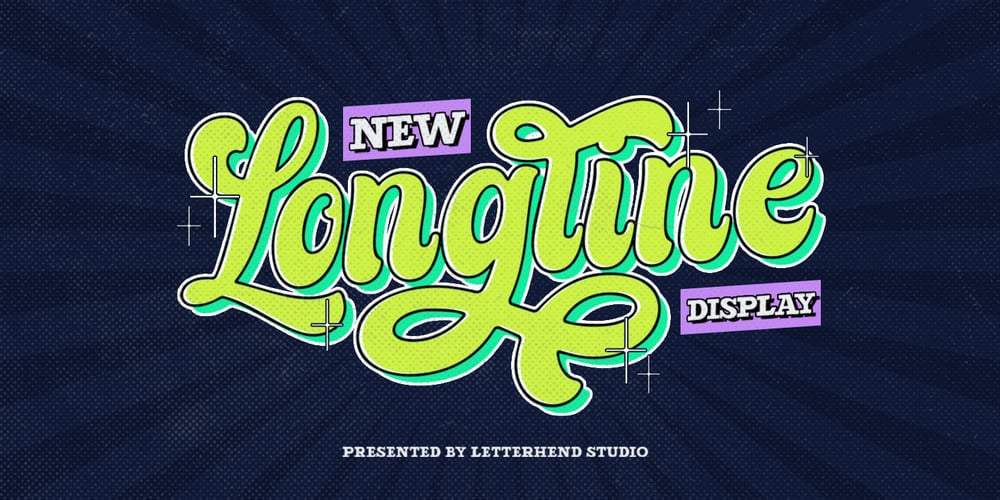
Longline Font Family was designed by Hendry Juanda and published by Letterhend. Longline contains 3 styles and family package options. Introducing, Longline. A retro bold script which will bring you back to 60s feel. This typeface has the extrude version so you can create your retro effect font in ease. This font perfectly made to be applied especially in logo, and the other various formal forms such as invitations, labels, logos, magazines, books, greeting / wedding cards, packaging, fashion, make up, stationery, novels, labels or any type of advertising purpose.Features : uppercase & lowercase numbers and punctuation multilingual ligatures alternates swashes PUA encoded We highly recommend using a program that supports OpenType features and Glyphs panels like many of Adobe apps and Corel Draw, so you can see and access all Glyph variations.